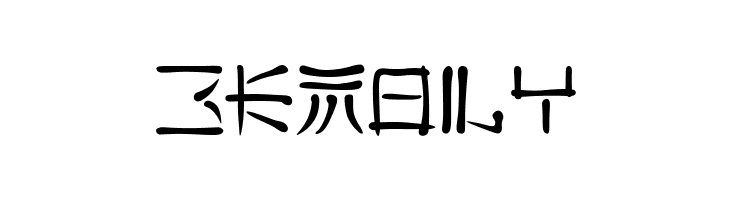
Scream When You're Ready To Die Regular Font
- Font: Scream When You're Ready To Die Regular
( Fonts by Matthew Welch - www.squaregear.net/fonts/ )
A brush-like, calligraphy-inspired font with dynamic strokes and an exotic aesthetic.